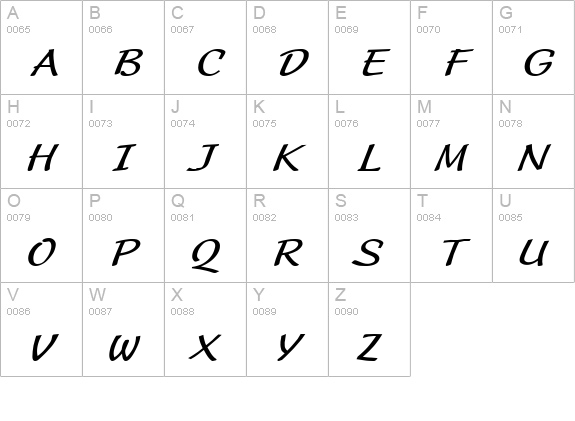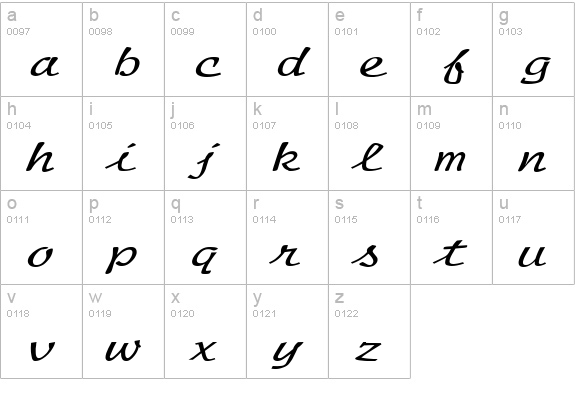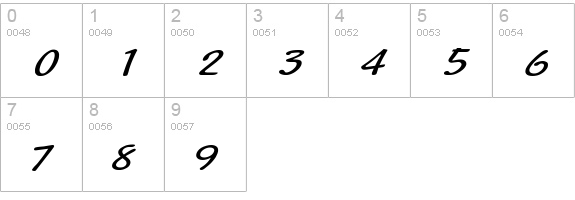
Manuscript Extended Italic Font Details
Manuscript Extended Italic is a distinctive, extended-width, italic variant in the Manuscript typeface family \xE2\x80\x94 well suited to design and typography projects.
Manuscript Extended Italic font is a stunning and elegant typeface that exudes sophistication and style. Its extended and italicized letterforms give any text a unique and expressive flair, making it perfect for adding a touch of class to your creative projects. This font's fluid and graceful strokes create a sense of movement and dynamism, while its elongated and slanted characters add a sense of drama and intrigue. With Manuscript Extended Italic, your words will effortlessly captivate and engage your audience, leaving a lasting impression. Whether you're working on a professional document, a personal project, or even designing a logo or branding materials, Manuscript Extended Italic font brings a touch of elegance and refinement to any design. Its versatility allows it to be used in a variety of contexts, from formal invitations and announcements to editorial layouts and artistic endeavors. The Manuscript Extended Italic font is also incredibly easy to use, as it seamlessly integrates with various design software and applications. Its legibility and readability make it a versatile choice for both print and digital media, ensuring that your message comes across clearly and effectively. One of the best things about Manuscript Extended Italic font is that it is freely available to download at FontsMarket.com. This means that you can easily access and use this exquisite typeface without any cost. Whether you're a professional designer or an aspiring creative, this font offers you the opportunity to enhance your work with a touch of elegance and sophistication, completely free of charge. So, why wait? Elevate your designs and bring a sense of refined beauty to your projects with Manuscript Extended Italic font. Download it today at FontsMarket.com and unlock the endless possibilities that this free font has to offer.